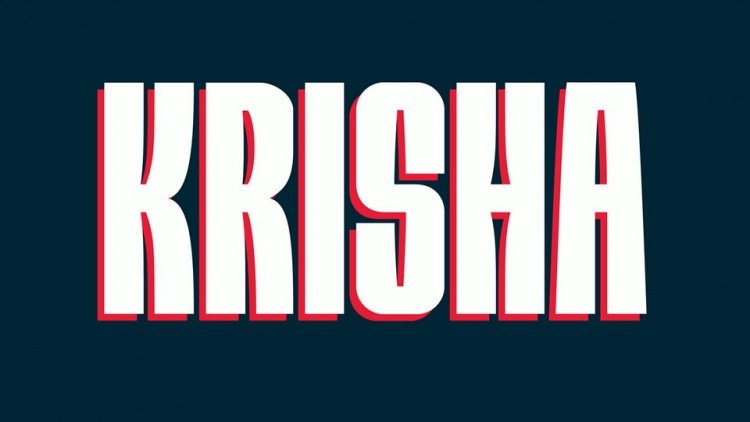
Krisha Font
Krisha is a big, bold and strange display sans serif typeface. It contains all caps letters, numbers, symbols, including multilingual support.
Krisha font is ideal for loud headlines and messages, eye-catching posters, logos, branding and more.